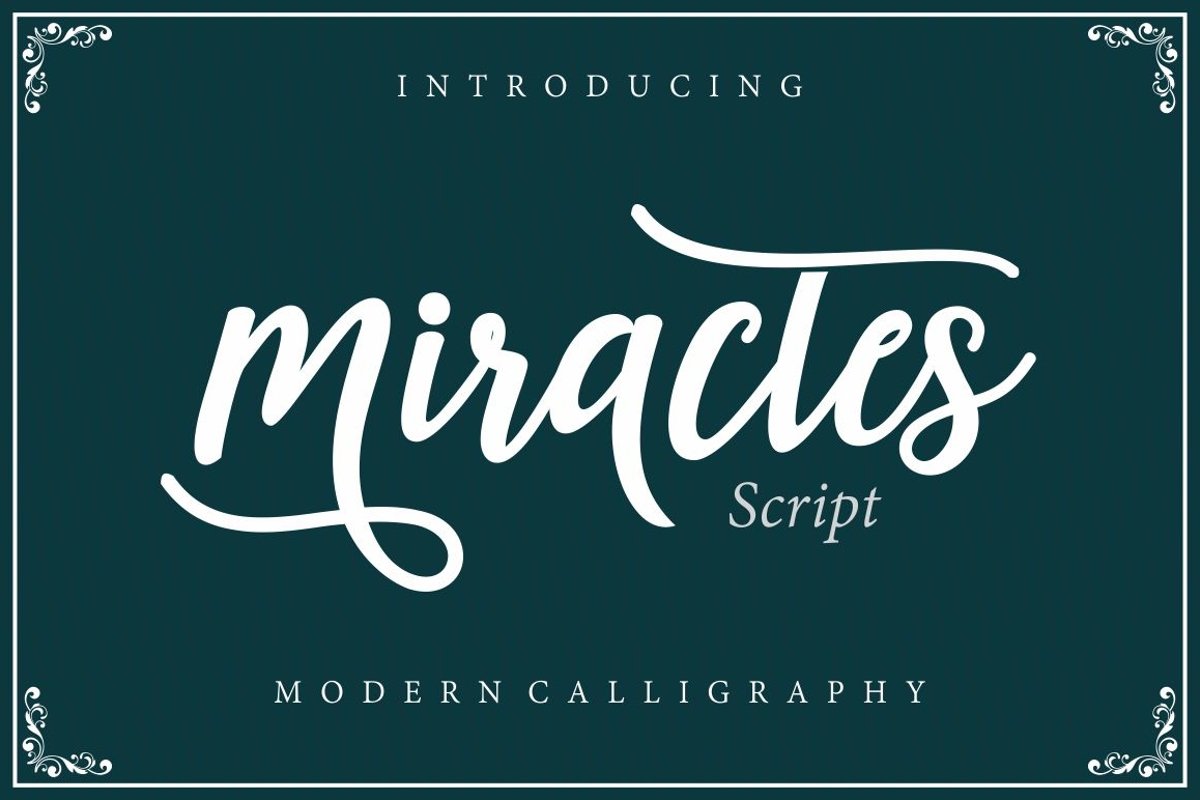
Miractes script
Miractes Script is a fun script font with lots of PUA encoded extra glyphs! This wonderful script font is perfect for crafting and designing with its thick swirls and swashes.